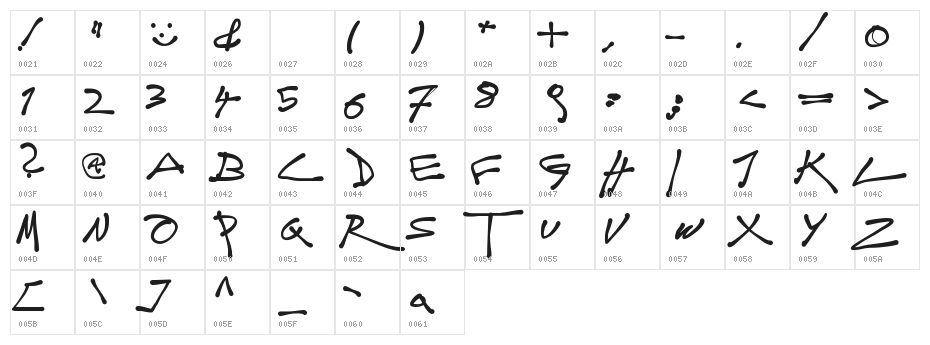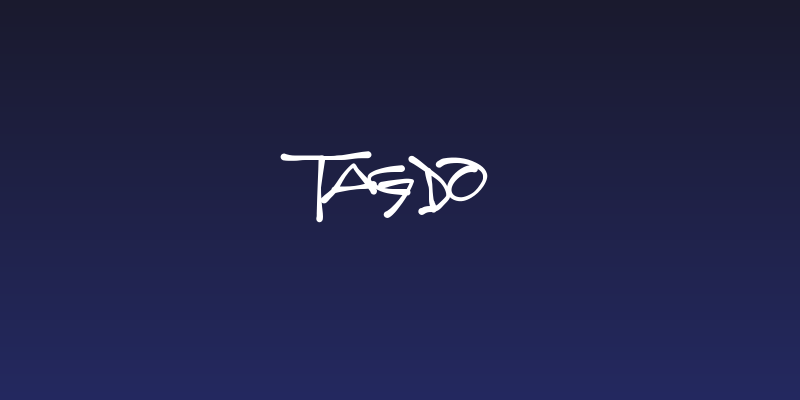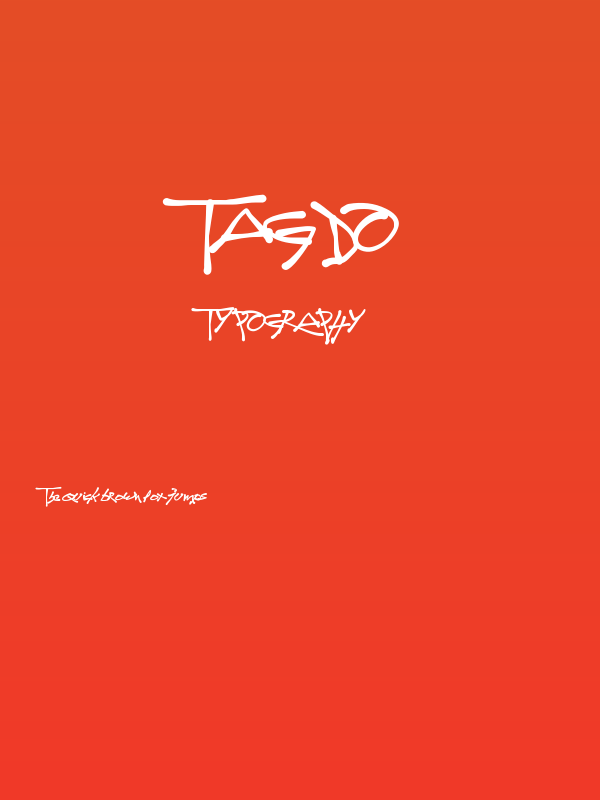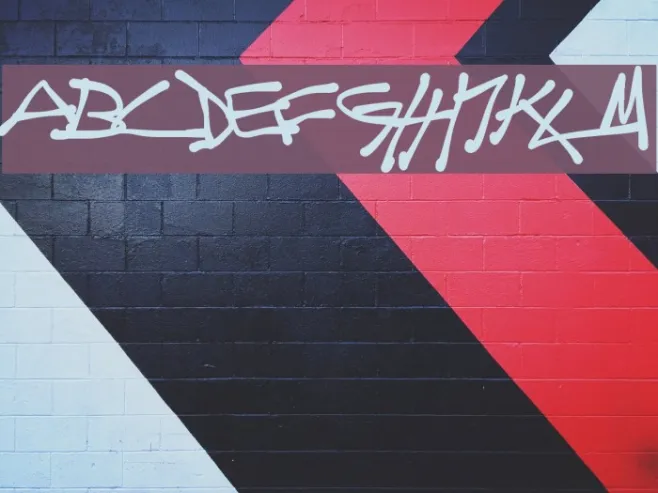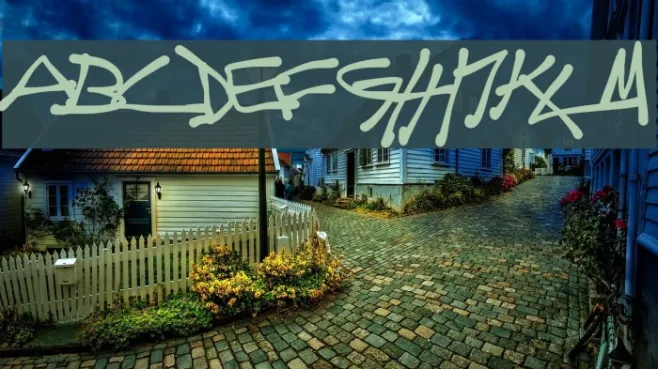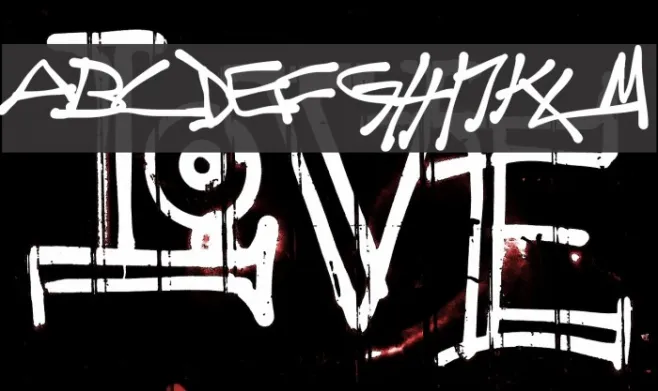
tagDo Font
tagDo Description
This font features a dynamic and expressive handwritten style, characterized by its bold and fluid strokes. The letters have a casual, yet artistic flair, with a noticeable slant that adds to its energetic appearance. The uppercase and lowercase letters maintain a consistent style, with some letters exhibiting unique, exaggerated loops and curves. The numerals and special characters follow the same lively design, making the font suitable for creative and informal applications. The overall look is both playful and modern, capturing attention with its distinctive personality.
| Use Case | Logos, Headlines, Informal Text |
| Proposed Projects | Ideal for creative projects such as greeting cards, posters, social media graphics, and personal branding. |